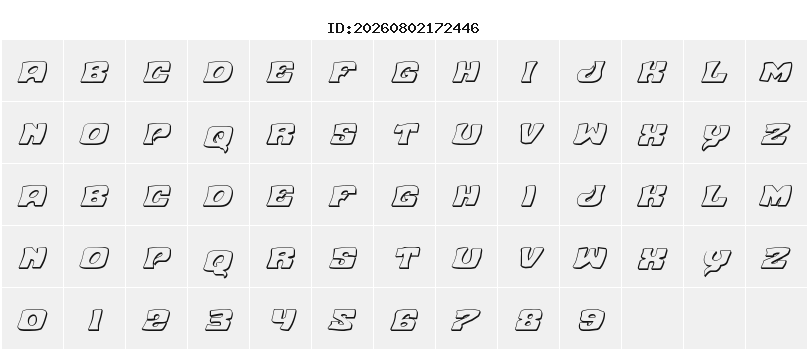
Nuevo Passion 3D Italic Preview
• Font Name: Nuevo Passion 3D Italic
• Full Font Name: Nuevo Passion 3D Italic
About Nuevo Passion 3D Italic.ttf
Nuevo Passion 3D Italic.ttf is a modern, elegant sans-serif font designed for ultimate readability and visual harmony. Perfect for branding, headlines, web design, and print materials.